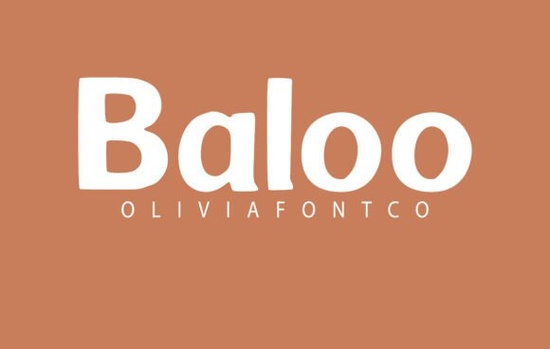
If you're designing wedding invitations, social media posts, or branding materials, finding a handwritten font that strikes the right balance between personality and readability can be tricky. Baloo Font solves that problem with an authentic handwritten style that carries a romantic touch, yet stays legible and versatile. It's a Creative Fabrica favorite for good reason: whether you use it as a headline or body text, it adds warmth without sacrificing clarity.
Is Baloo Font good for wedding invitations and romantic projects?
Yes, absolutely. Baloo's hand-drawn letters have a gentle, flowing feel that suits elegant wedding stationery, save-the-dates, and thank-you cards. The font avoids being overly scripty or hard to read, so your guests won't struggle with names or addresses. Because it works equally well in larger sizes (for the couple's names) and smaller sizes (for ceremony details), you can use it consistently across your entire invitation suite. If you prefer a slightly more formal script, you might also like Juliette, which offers a delicate, calligraphy-inspired look.
Can Baloo Font handle large headlines and small body text?
Most handwritten fonts lean heavily in one direction either they're decorative and hard to read in paragraphs, or they're too plain to grab attention. Baloo Font sits right in the middle. Its generous x-height and open letterforms make it clear even at small sizes, while the uneven, human-like strokes give headlines character. For example, you can set a bold magazine cover title in Baloo and then use the same font for a pull quote without losing readability. If you need a bolder headline font to pair with it, League Spartan provides a modern sans-serif contrast that keeps your layout balanced.
Which everyday design projects work best with Baloo Font?
Baloo is a practical workhorse for creative small businesses. Here are a few ways designers and crafters use it:
- Social media graphics – Quotes, announcements, and product shots benefit from the friendly, approachable feel.
- Branding and logos – A handwritten style helps brands that want to feel personal, from boutique shops to freelance services.
- Cards and stationery – Birthday cards, gift tags, and personal notes look handcrafted without the hassle of manual lettering.
- Print-on-demand products – T‑shirts, mugs, and phone cases with short text look distinctive but still readable.
If you're creating items for children or playful themes, Kids Daily Notes is another handwritten option that keeps a light, whimsical tone. For a more vintage romantic vibe, try Beauty Gingerbread.
How do I pair Baloo Font with other typefaces for a professional layout?
Because Baloo has a casual, human feel, it works best when you keep supporting fonts simple. A clean sans-serif like League Spartanmentioned above brings order without clashing styles. For headings-only designs (posters, Instagram Stories), Baloo stands alone nicely. Avoid pairing it with another highly decorative script for body text; instead, choose fonts with straight lines and even spacing.
If you're experimenting with layered designs say, overlaying Baloo on a textured background, consider pairing it with a softer companion script like Gervia for accents, or stick with just Baloo throughout a single-color layout to keep things cohesive.